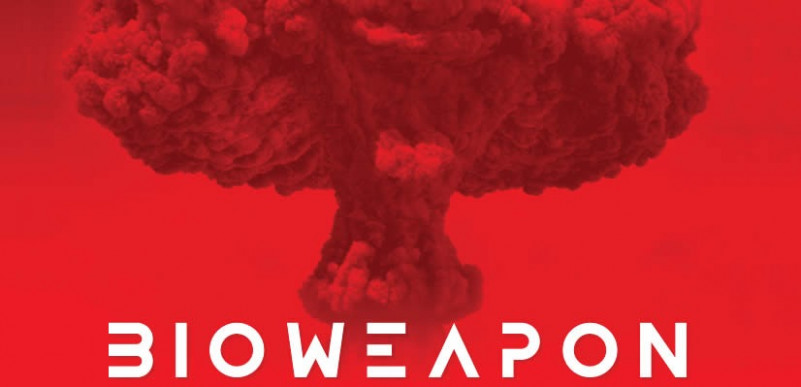
Bioweapon Free Display Font
Bioweapon Free Display Font is inspired by futuristic design concepts and space-like design concepts. This font is good for future, modern, space, sports, bold and speed themed designs.